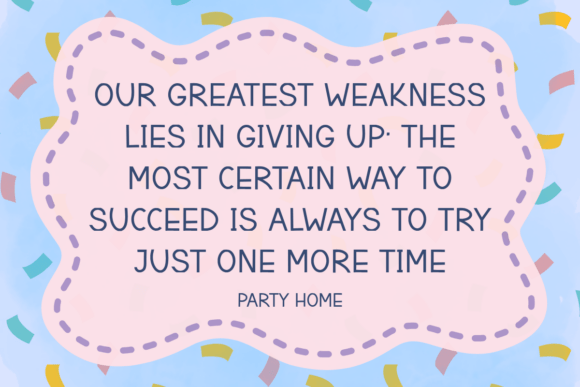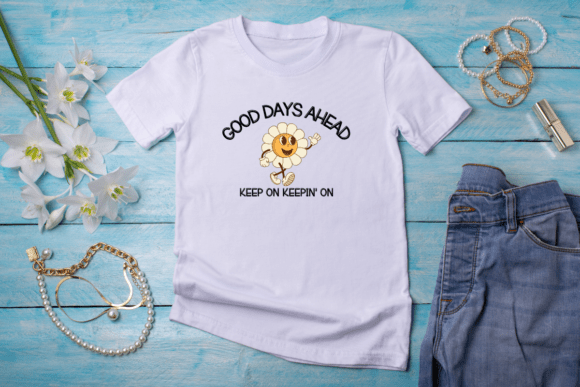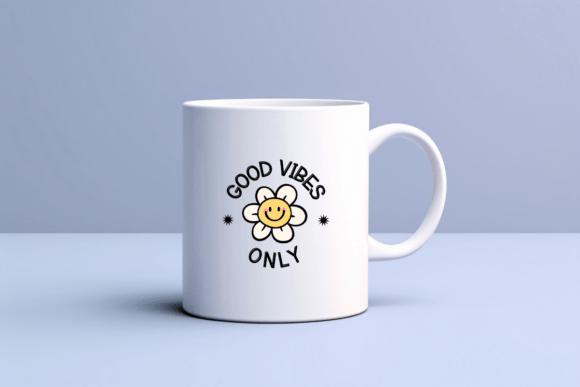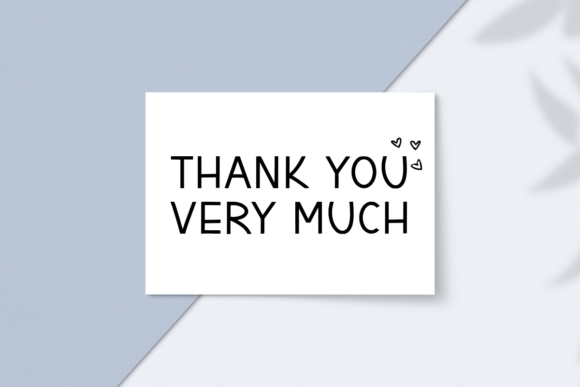
Introduction to Party Home Font
We’ve all been there – staring at a blank canvas, trying to come up with the perfect design for our next creative project. The cursor blinks, and our minds go blank. But what if you had a secret ingredient to spice up your designs and make them truly stand out? Enter the Party Home Font, a delightful handwriting font that’s about to become your new best friend.
This charming font is not just a pretty face – it’s a high-quality design resource that’s perfect for adding a playful touch to your projects. Whether you’re a seasoned crafter or a beginner, the Party Home Font is a valuable addition to your toolkit. With its cute aesthetic and natural vibes, it’s perfect for creating invitations, greeting cards, or even branding your personal business.
Key Features of Party Home Font
- High-quality design resource ideal for creative projects and events.
- Unique characteristics include vibrant colors, playful typography, and celebratory feel, perfect for party-themed designs.
Honest Review: Party Home Font
As a designer, I’m always on the lookout for high-quality design resources to elevate my creative projects. The Party Home Font is one such resource that caught my attention.
I was pleased to find that the Party Home Font offers a transparent background, making it easy to use in a variety of creative projects. The font itself is playful and fun, perfect for any party or celebration-themed design.
- High-quality design with clear lines and vibrant colors
- Transparent background makes it easy to use in creative projects
- Perfect for party or celebration-themed designs
- Font may not be suitable for professional or formal designs
- Limited character set may require additional font pairing
Tips for Getting the Most Out of Party Home Font
Use a transparent background to make your text stand out on any design. Experiment with different font sizes and colors to create a unique look. Consider using Party Home Font in conjunction with other design elements, such as graphics and images, to create a visually appealing design.
Party Home Font is ideal for use in creative projects, such as invitations, party decorations, and social media graphics. It’s also great for use in presentations and documents where a fun and playful font is needed.